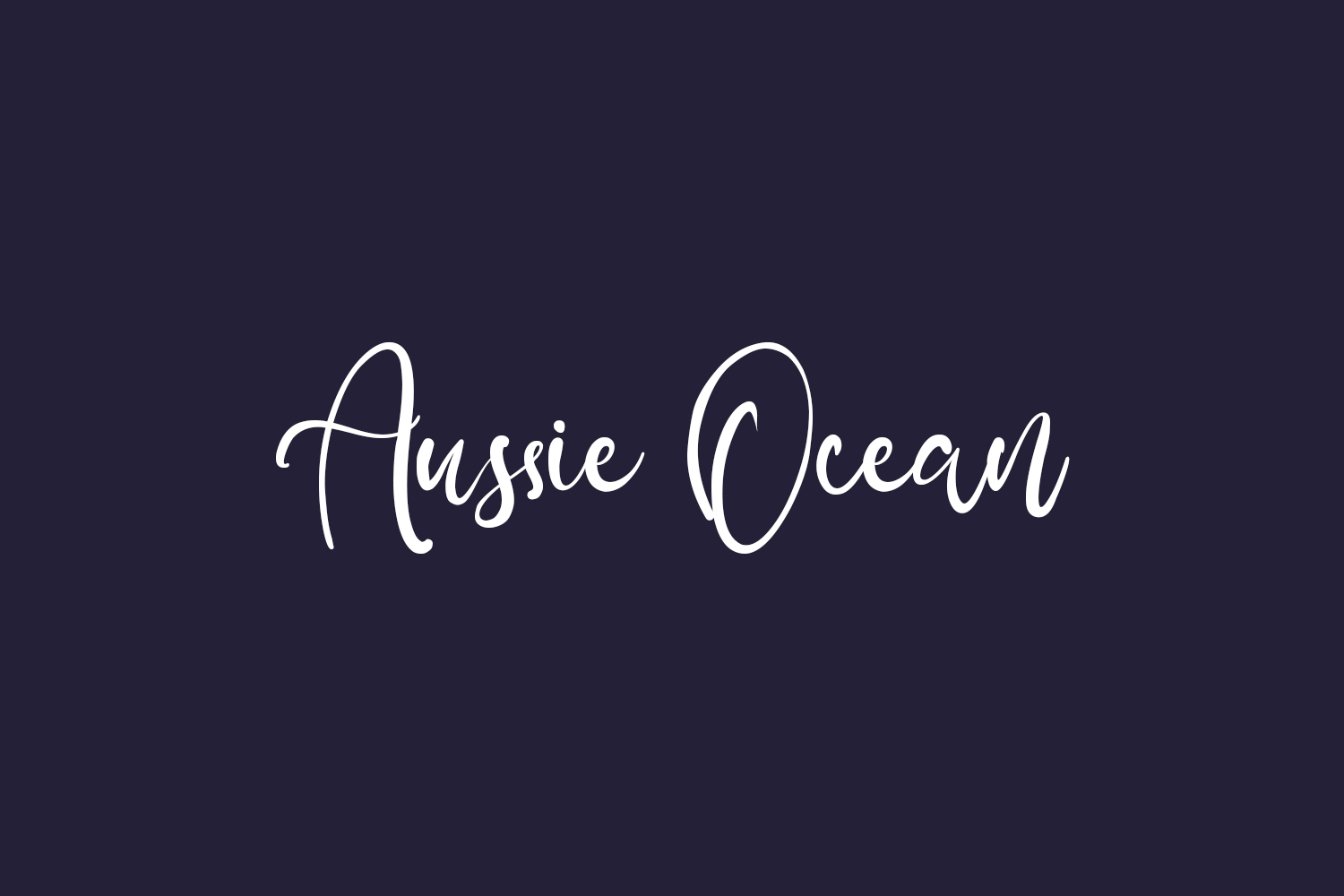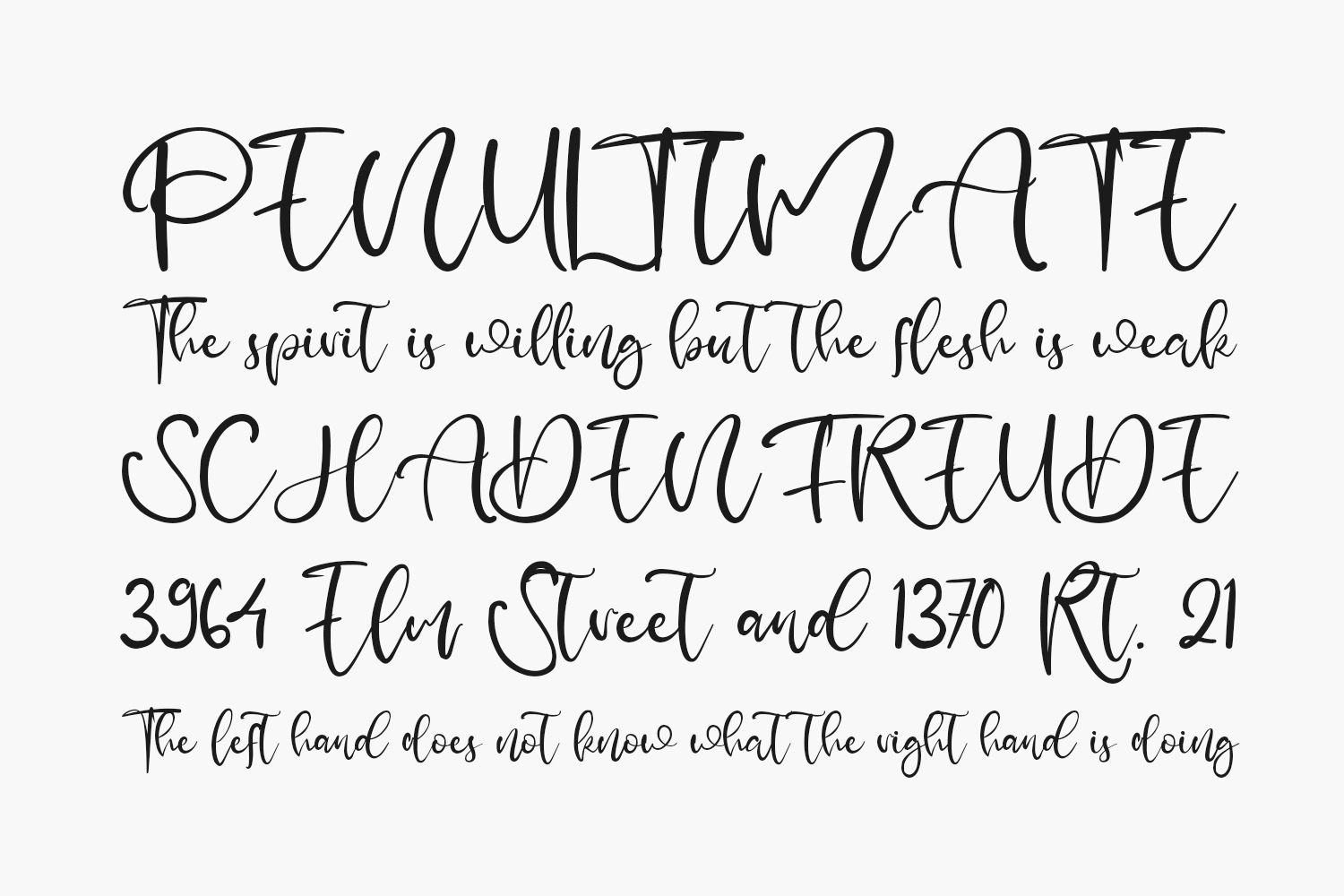
Aussie Ocean Free Font is a modern and playful handwritten script font. It’s great for crafters and designers. This font can be used to write various kinds of products according to the aspect of each need. Aussie Ocean Free Font was designed by Kong Font and is free for personal or commercial use.